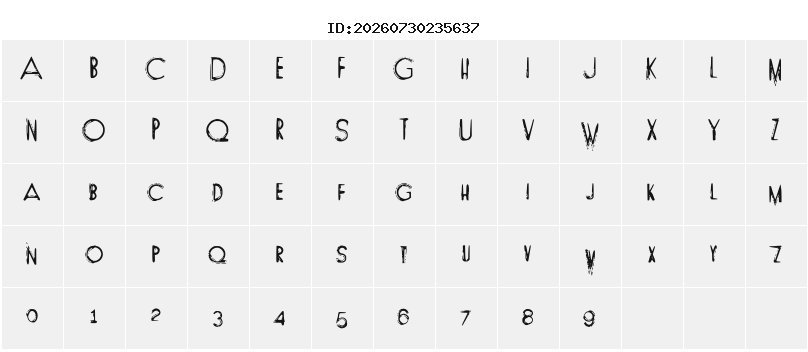
• Font Name: LongLeg
About LongLeg.ttf
LongLeg.ttf is a modern, elegant sans-serif font designed for ultimate readability and visual harmony. Perfect for branding, headlines, web design, and print materials.